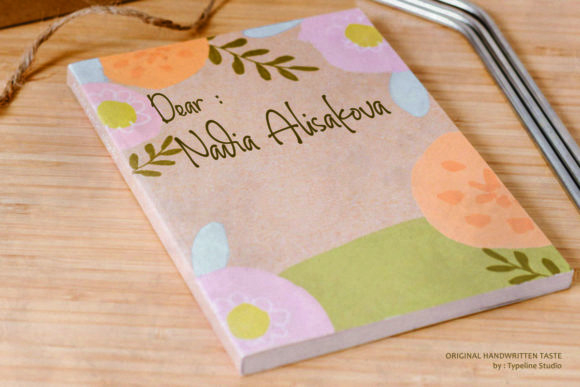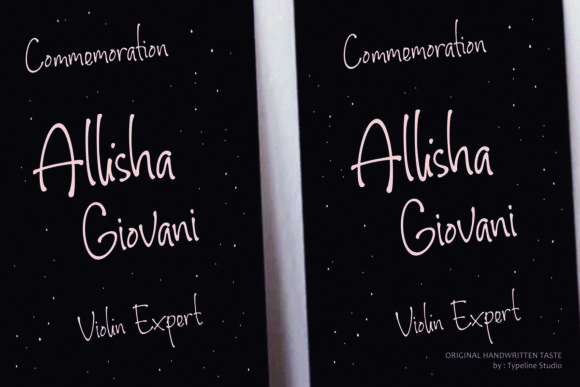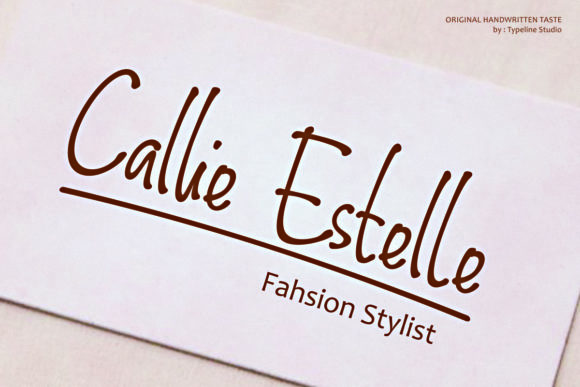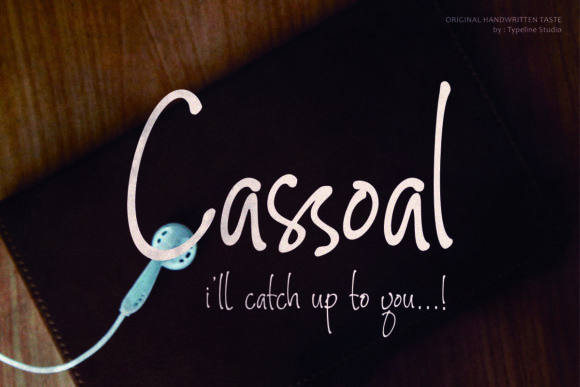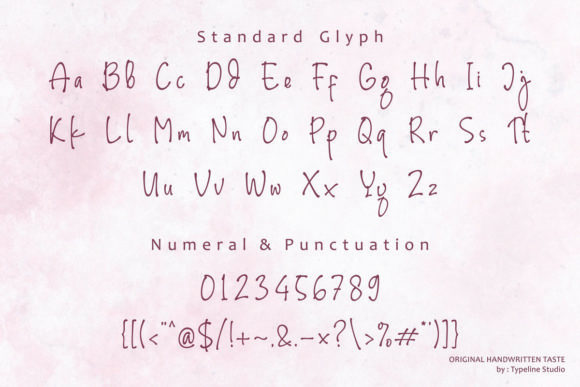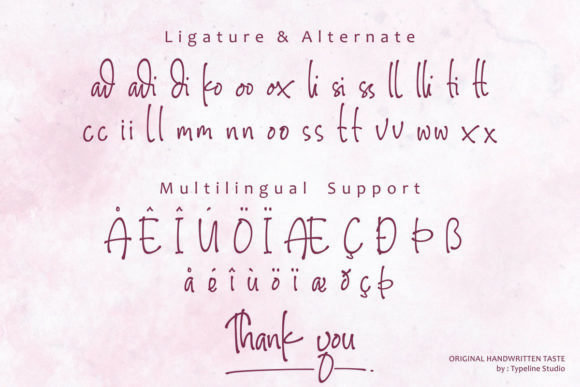
Introduction to Olliegladies Font
Olliegladies is an adorable quirky handwritten font.
It will add an incredibly joyful touch to your designs Fall in love with its playful style and use it to create beautiful stationary art, eye-catching social media posts, and much more.
Key Features of Olliegladies Font